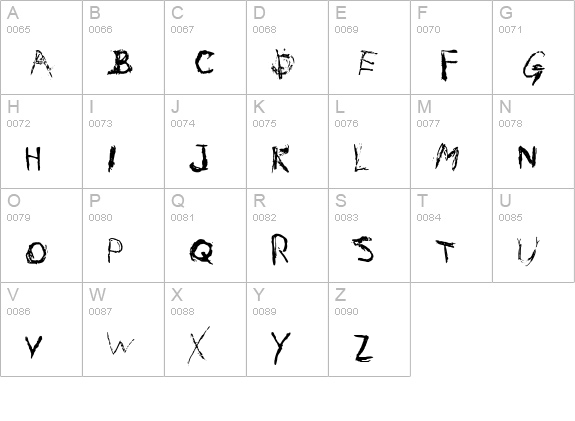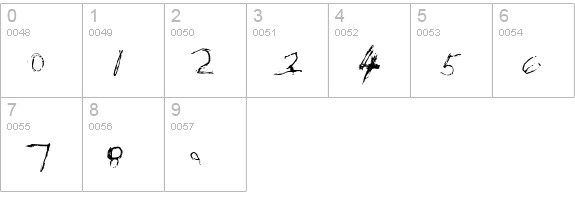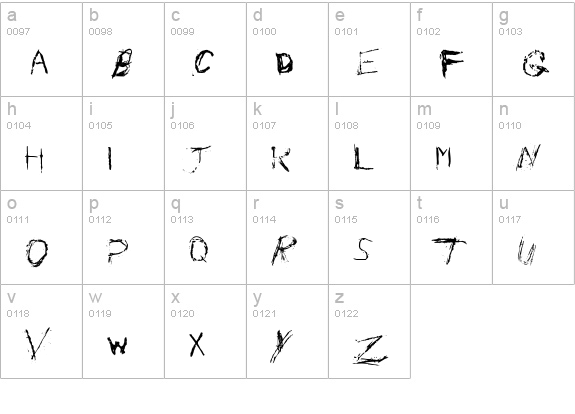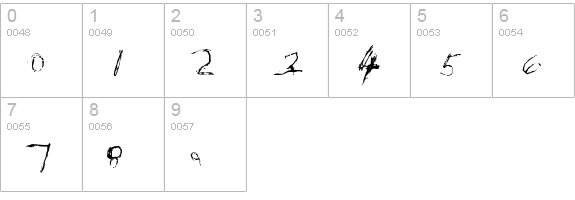
Nail Scratch Font Details
Introducing Nail Scratch font - a striking and edgy display font that exudes personality and attitude. With its jagged and rough edges, this font gives off a rebellious and bold vibe, perfect for adding a touch of uniqueness to your projects. Nail Scratch font is freely available to download at FontsMarket.com, making it easily accessible for all your design needs. Whether you're working on a poster, logo, or social media graphics, this font is sure to make a statement and grab attention. Embrace the raw and gritty aesthetic of Nail Scratch font and unleash your creativity today.